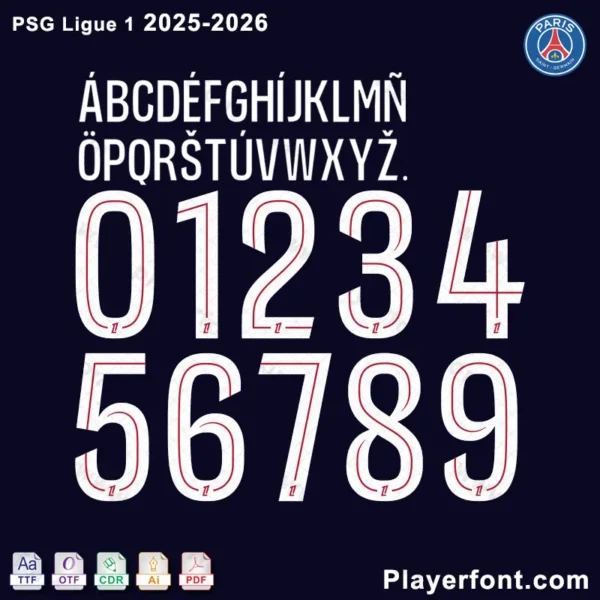
PSG Ligue 1 2025-2026 Font Kit Download
The numbers and alphabet of the official Ligue 1 PSG 2025-2026 font displayed in white and red on a dark blue background with the club crest.
Official player font for PSG’s 2025-2026 Ligue 1 kit.
Paris Saint-Germain Ligue 1 Font for the 2025-2026 Season
Elevate your designs with the official PSG Font for the 2025-2026 season. This is the exact typeface seen on the jerseys of your favorite Paris Saint-Germain players during their Ligue 1 campaign. With its modern, streamlined design featuring a distinctive inner line, this font is instantly recognizable and perfect for any fan or designer looking to capture the spirit of Les Parisiens.
Full character and number set of the Paris Saint-Germain (PSG) Ligue 1 font for the 2025-2026 season, with available file format icons.PSG Ligue 1 2025-2026 Font Kit Download